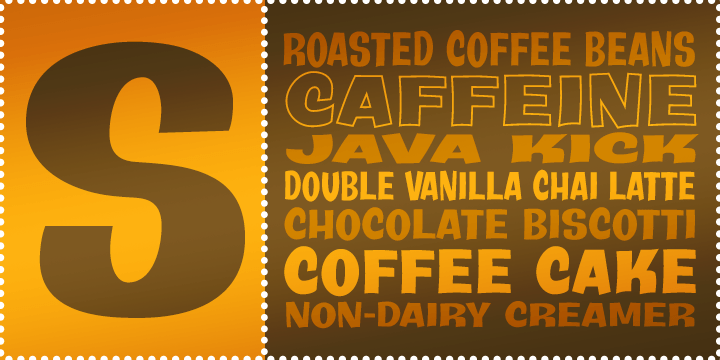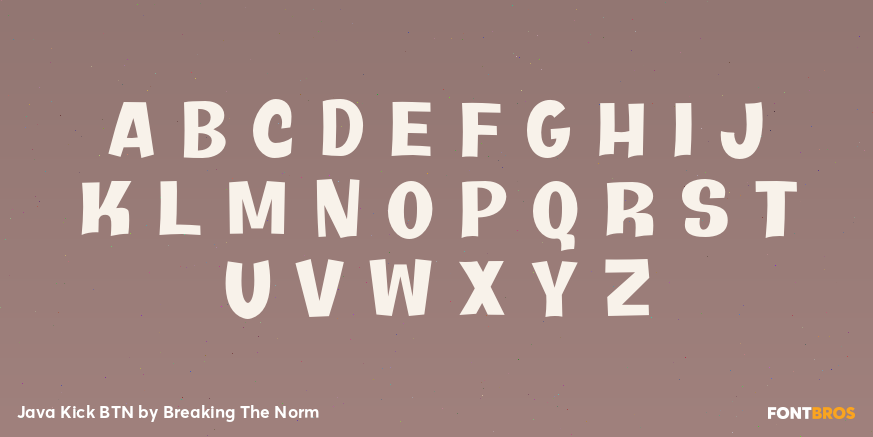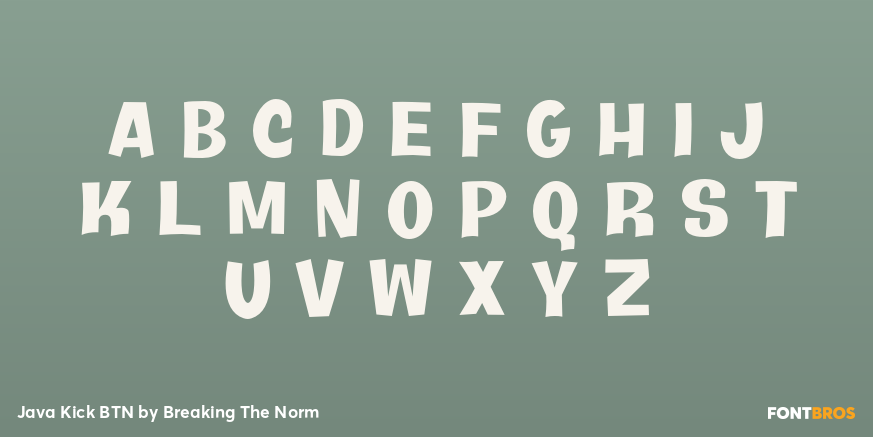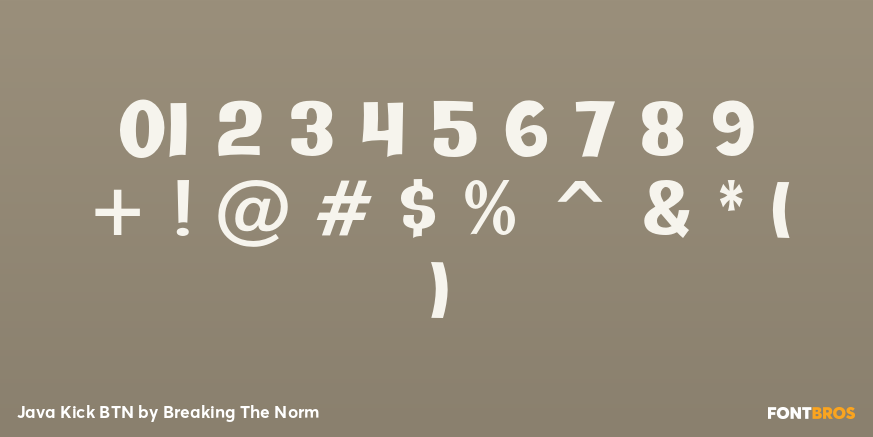
Java Kick BTN
Font Family by Breaking The Norm
Java Kick BTN is a bold display family with a lively, high-energy personality. Its strong construction and caffeinated attitude make it ideal for headlines, posters, packaging, signage, branding, and promotional graphics that need to feel immediate, punchy, and full of momentum. With a broad range of regular, oblique, condensed, extended, wide, and outline-driven styles, Java Kick BTN offers exceptional flexibility for large-scale display work. Whether used for bold advertising, energetic food and beverage graphics, or attention-grabbing editorial design, it brings a forceful and upbeat voice to the page.